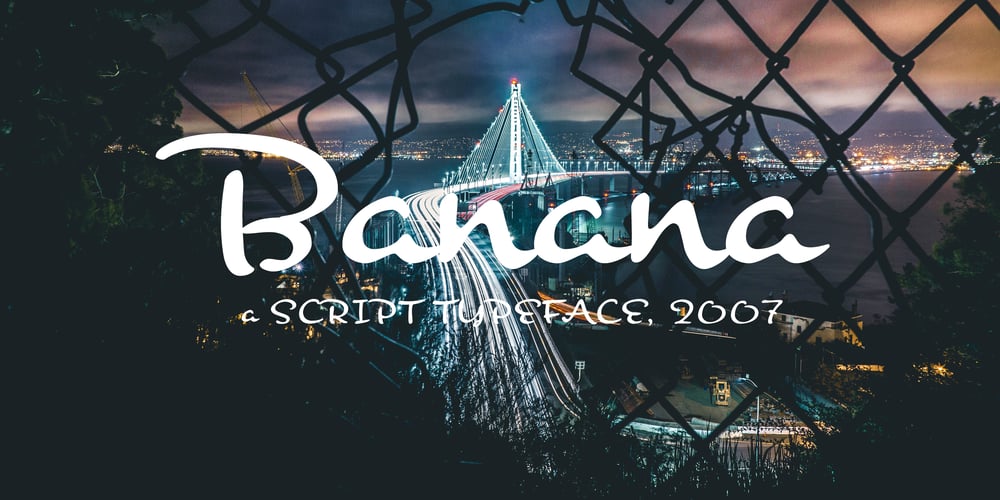
Banana
Banana font
Banana Font Family was designed by Ryoichi Tsunekawa and published by Dharma Type. Banana contains 1 styles and family package options. This font is a modern urban script. Very impressive because of its heavy and rounded shape. Upright stems and wide width of their shape gives easy and slow impression. There is one more script designed by in the same concept. -Nothing -Banana